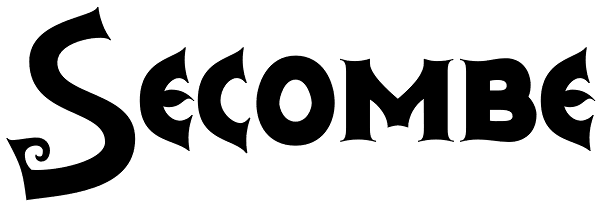
Secombe
Secombe is a lively fun family of typefaces in the spirit of the turn of the last century. It's a boisterous fun design, named in honor of the late Harry Secombe (or if you prefer, Neddy Seagoon). Secome is a family of two 'small capitals' display...
Secombe
Secombe Grande